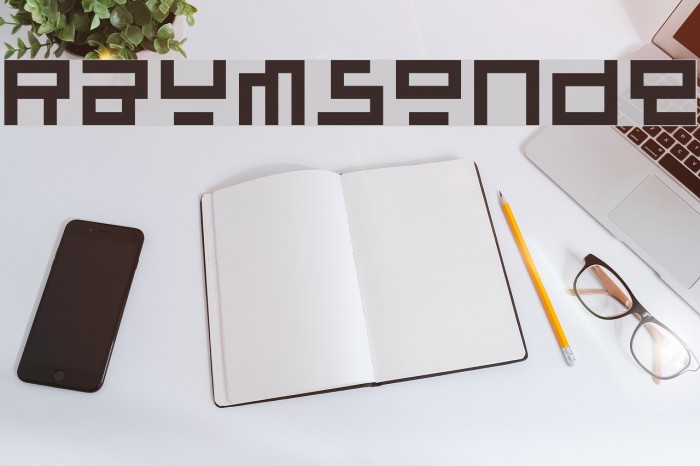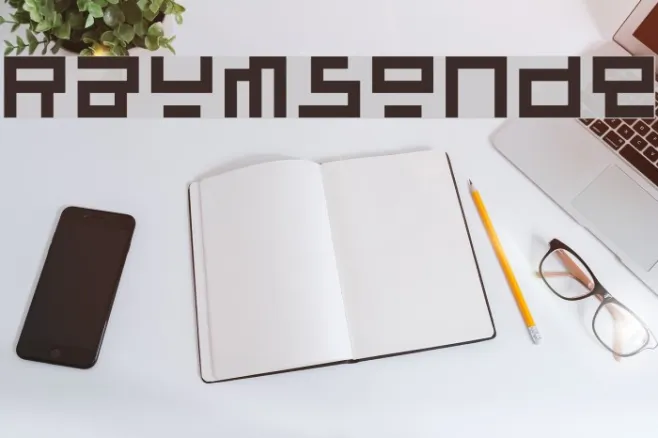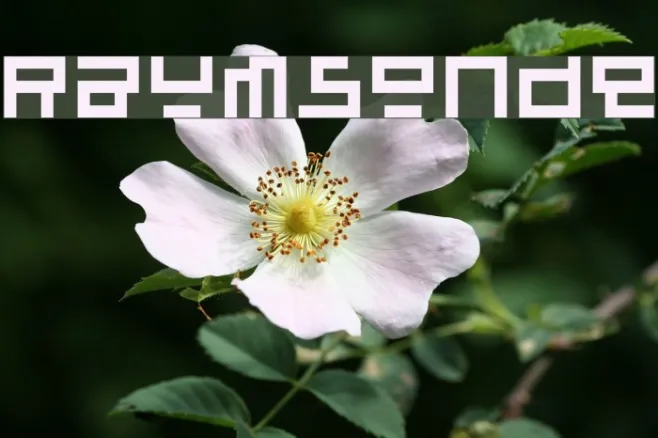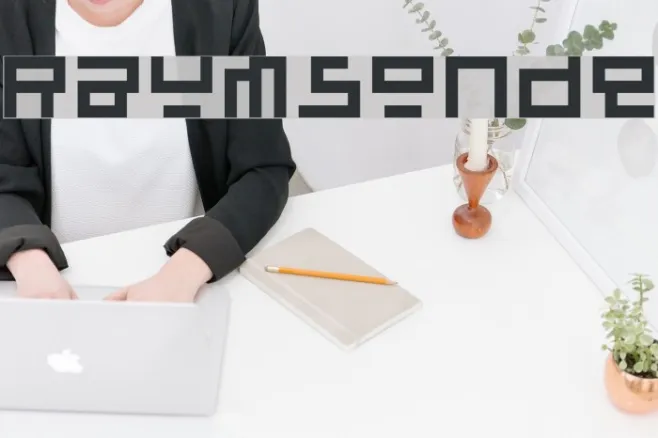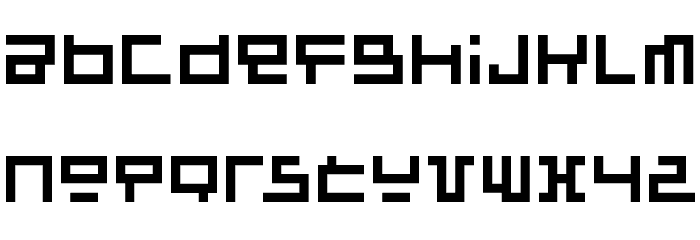
Raumsonde Font
Raumsonde Description
This font features a bold, geometric design with a distinctly digital and futuristic aesthetic. The characters are constructed with straight lines and sharp angles, giving it a pixelated, retro video game feel. The uppercase and lowercase letters maintain a consistent height, contributing to a uniform appearance. The numerals and special characters are designed to match the angular style of the alphabet, ensuring cohesion across all glyphs. The font's blocky structure makes it highly legible at various sizes, though it is particularly striking in larger formats where its unique style can be fully appreciated.
| Proposed Projects | Ideal for video game design, tech branding, digital art projects, and futuristic-themed posters. |